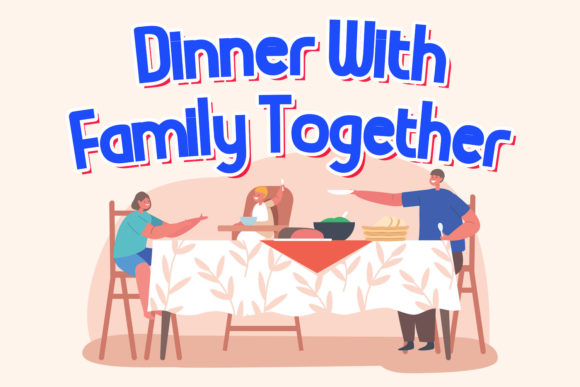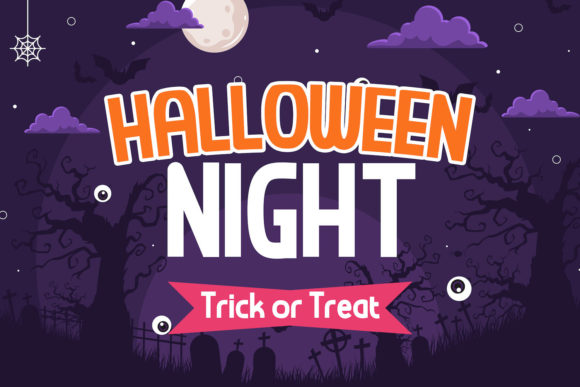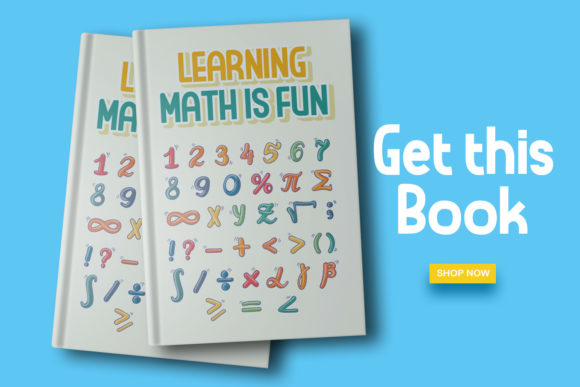
Introduction to Ronaldi Guje Font
Remember that moment when you finally land on the perfect design element that elevates your entire creative project? For many designers, that ‘aha’ moment comes when they discover the perfect font. Today, we’re excited to share with you the Ronaldi Guje Font, a modern and playful display font that’s sure to add a contemporary feel to your designs. With its techno aspect, it’s the ideal font for titles, subtitles, and UI elements, making it a valuable resource for designers looking to take their projects to the next level.
The Ronaldi Guje Font is not just a pretty face; it’s also a high-quality design resource that’s available for free download. Its transparent background makes it easy to customize and integrate into any design project, giving you the freedom to create something truly unique.
Ronaldi Guje Font Key Features
- High-quality design resource for creative projects, suitable for a wide range of applications.
- Comes in a transparent background, allowing for seamless integration with various design elements.
- Font size: scalable, suitable for use in various font sizes and resolutions.
- Resolution: supports high-resolution designs, making it perfect for printing and digital applications.
- Unique characteristics: elegant, modern, and sophisticated design aesthetic, making it perfect for branding, typography, and creative projects.
Honest Review: Ronaldi Guje Font
I recently stumbled upon the Ronaldi Guje Font, and I must say, it’s been a great addition to my design resource library. This font is perfect for any creative project that requires a unique and eye-catching typography.
However, I do have a few limitations to mention: ⚠️ The font may not be suitable for all types of designs, especially those that require a more formal or traditional look. ⚠️ Some users may find the font a bit too playful or experimental for their taste.
Overall, I’m really impressed with the Ronaldi Guje Font. It’s a great resource for designers who want to add some creativity and flair to their projects. Just be aware of its limitations, and you’ll be all set for a successful design project.
Ronaldi Guje Font
Ronaldi Guje Font is a unique and creative design resource that can elevate your high-quality projects. This font is available for free download and features a transparent background, making it easy to customize and integrate into your design.
Tips for Getting the Most Out of Ronaldi Guje Font
Here are some tips for getting the most out of Ronaldi Guje Font: Use it in combination with other design elements to create a unique and eye-catching design, Experiment with different font sizes and colors to create visual interest, and Don’t be afraid to get creative and try out new things.
Ronaldi Guje Font is commonly used in creative projects such as logos, branding materials, and social media graphics. It’s also a great resource for designers who want to add a touch of elegance and sophistication to their designs.